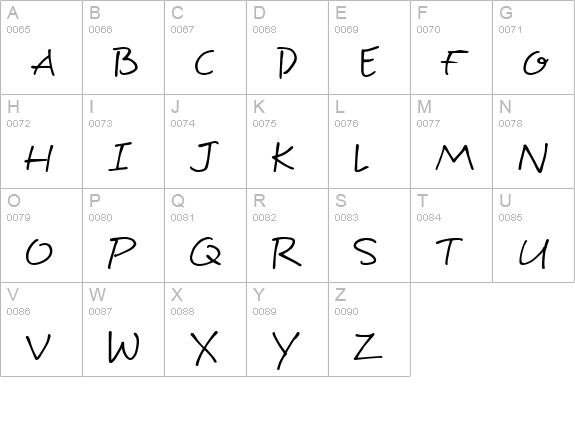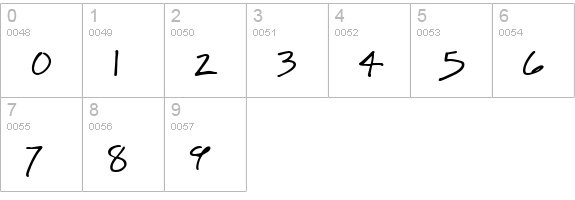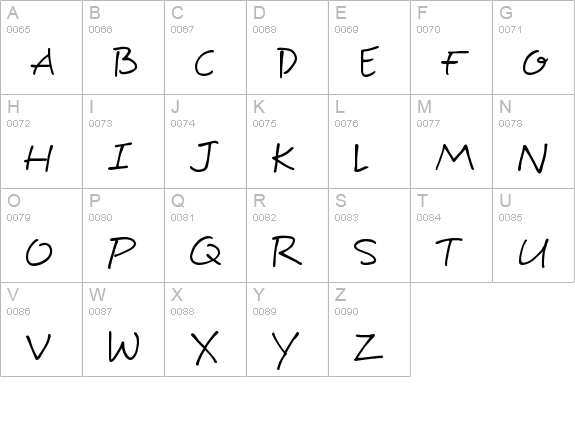
CK Artisan Font Details
Introducing the elegant and sophisticated CK Artisan font! This exquisite typeface exudes a sense of handmade craftsmanship and artistic flair, making it perfect for a wide range of design projects. With its unique hand-drawn style and exquisite details, CK Artisan adds a touch of charm and elegance to any text or headline. What sets CK Artisan apart is not just its stunning design, but also the fact that it is available for free! That's right, you can download this beautiful font for no cost at FontsMarket.com. Whether you're working on a branding project, a wedding invitation, or a social media post, CK Artisan is sure to elevate your design to the next level. Embrace the beauty and sophistication of CK Artisan font today and bring a touch of artistry to your creations. Download it for free at FontsMarket.com and let your creativity shine!